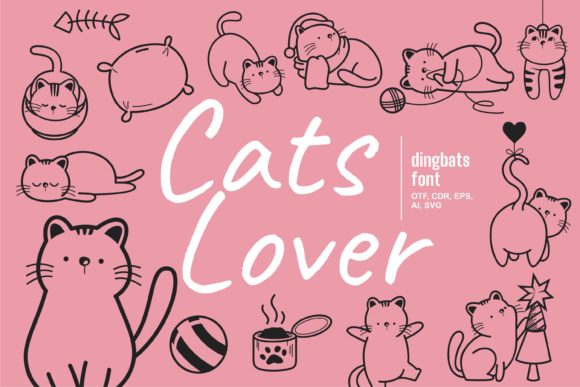
Cats Lover Font: The Purrfect Addition to Your Design Collection
Are you a feline fanatic looking for a unique font to express your love for cats? Look no further than the Cats Lover Font! This cool and quirky dingbats font is purrfect for adding a touch of whimsy to your designs. In this article, we’ll dive into the world of Cats Lover Font and explore its versatility, style, and uses.
What is Cats Lover Font?
Cats Lover Font is a one-of-a-kind dingbats font that features adorable cat illustrations, making it a must-have for cat enthusiasts and designers alike. Its distinct style sets it apart from other fonts, making it incredibly fitting for a wide range of designs. Whether you’re working on a crafting project, digital design, presentation, or greeting card, Cats Lover Font is the perfect addition to your toolkit.
Key Features of Cats Lover Font
- Unique and quirky design: Cats Lover Font boasts a distinctive style that’s sure to make your designs stand out.
- Dingbats font: This font features a range of cat illustrations, from cute and playful to sleek and sophisticated.
- Versatile: Cats Lover Font can be used for a variety of projects, including crafting, digital designing, presentations, and greeting card making.
Design Uses for Cats Lover Font
Cats Lover Font is an incredibly versatile font that can be used in a multitude of design projects. Here are some ideas to get you started:
- Crafting: Add a personal touch to your crafting projects, such as scrapbooking, card making, and DIY gifts.
- Digital designing: Use Cats Lover Font to create stunning digital art, social media graphics, and blog posts.
- Presentations: Add a touch of whimsy to your presentations, making them more engaging and fun.
- Greeting card making: Create adorable greeting cards for cat lovers, birthdays, and special occasions.
Tips and Tricks for Using Cats Lover Font
To get the most out of Cats Lover Font, here are some tips and tricks to keep in mind:
- Experiment with different sizes: Play around with different font sizes to achieve the desired effect.
- Mix and match: Combine Cats Lover Font with other fonts to create a unique and eye-catching design.
- Use it sparingly: Don’t overdo it – use Cats Lover Font sparingly to avoid overwhelming your design.
The Benefits of Using Cats Lover Font
So, why choose Cats Lover Font for your design projects? Here are just a few benefits:
- Unique and recognizable: Cats Lover Font is sure to make your designs stand out from the crowd.
- Time-saving: With Cats Lover Font, you can create stunning designs in no time.
- Fun and playful: This font adds a touch of whimsy and fun to any design project.
In conclusion, Cats Lover Font is a cool and unique dingbats font that’s purrfect for cat enthusiasts and designers alike. Its distinct style and versatility make it an excellent addition to any design collection. Whether you’re working on a crafting project, digital design, presentation, or greeting card, Cats Lover Font is sure to bring a touch of whimsy and fun to your designs.